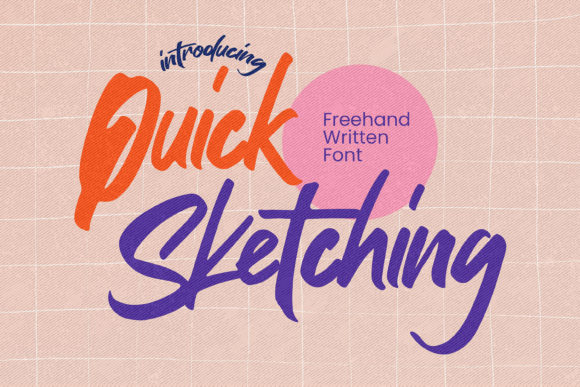
Ignite your designs with the Quick Sketching Font, a masterpiece crafted by Gassstype Studio. This urban-styled handwritten font oozes coolness and personality, ready to transform your creative visions into captivating realities.
Immerse yourself in the world of street art, where walls come alive with bold strokes and vibrant colors. Quick Sketching captures this raw energy, adding a touch of edginess to your designs. Picture your brand's logo, boldly sketched with this font, leaving an unforgettable mark on the minds of your audience.
With Quick Sketching, you'll create t-shirts that speak volumes, sportswear that screams dynamism, and advertisements that demand attention. Unleash your inner artist and let your designs flow freely, knowing that this font will elevate them to new heights of awesomeness.
But it doesn't stop there. Quick Sketching's versatility extends to clothing, where it adds a touch of urban flair to your creations. Imagine your designs adorning trendy hoodies, stylish caps, and edgy jackets, each piece telling a story of individuality and self-expression.
So, join the creative revolution and embrace the power of Quick Sketching. Discover the boundless possibilities of this remarkable font, and watch as your designs take on a life of their own. Let Quick Sketching ignite your imagination and propel your creative journey to extraordinary new frontiers.